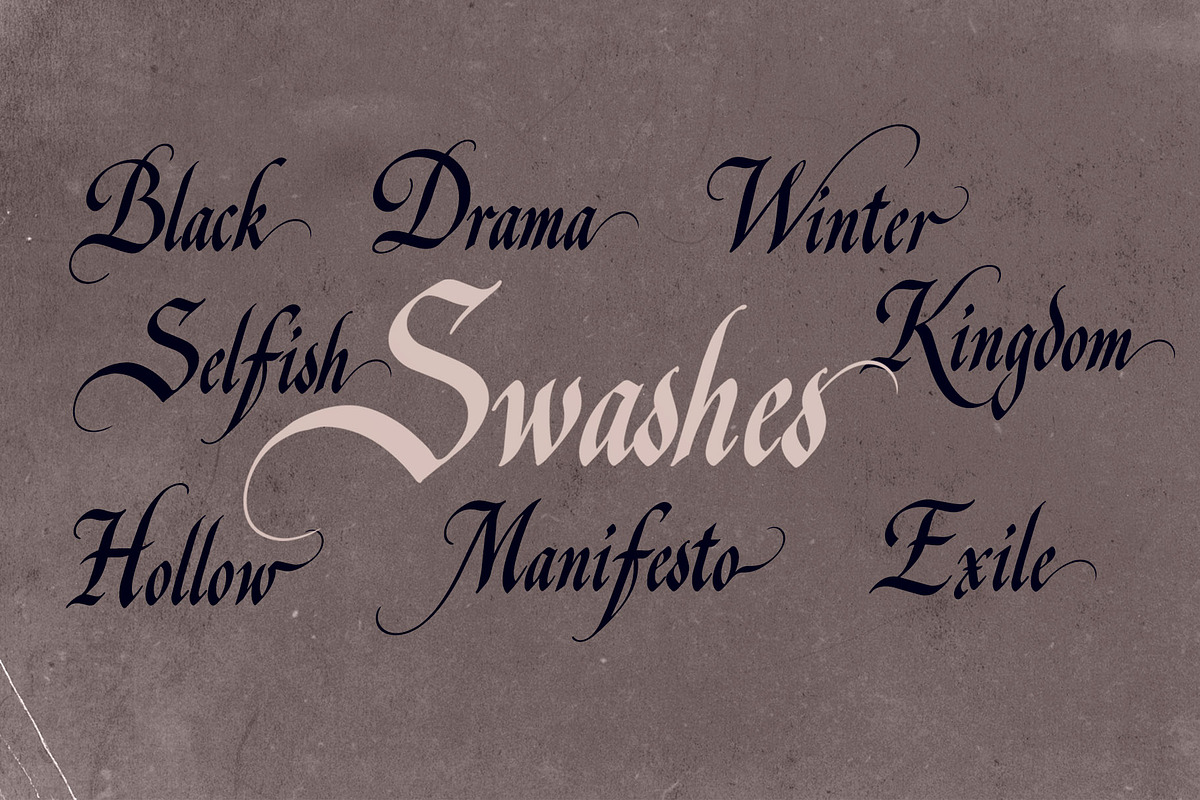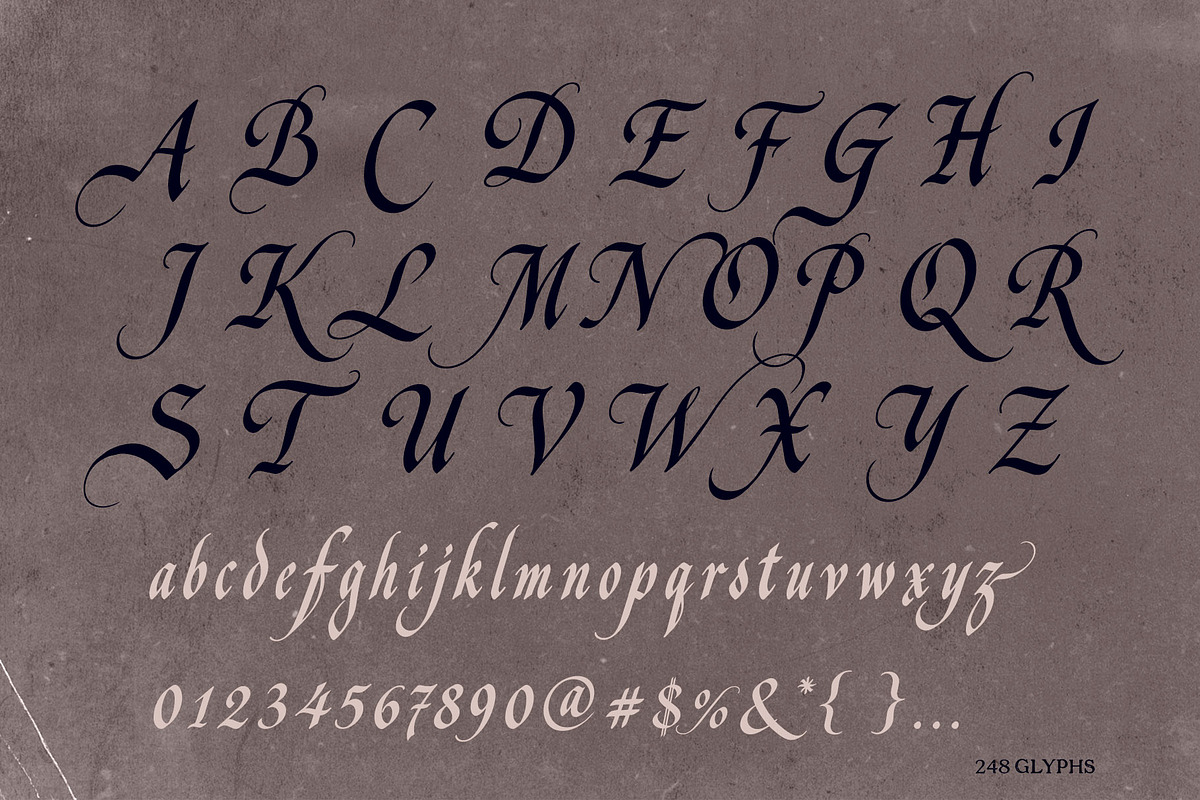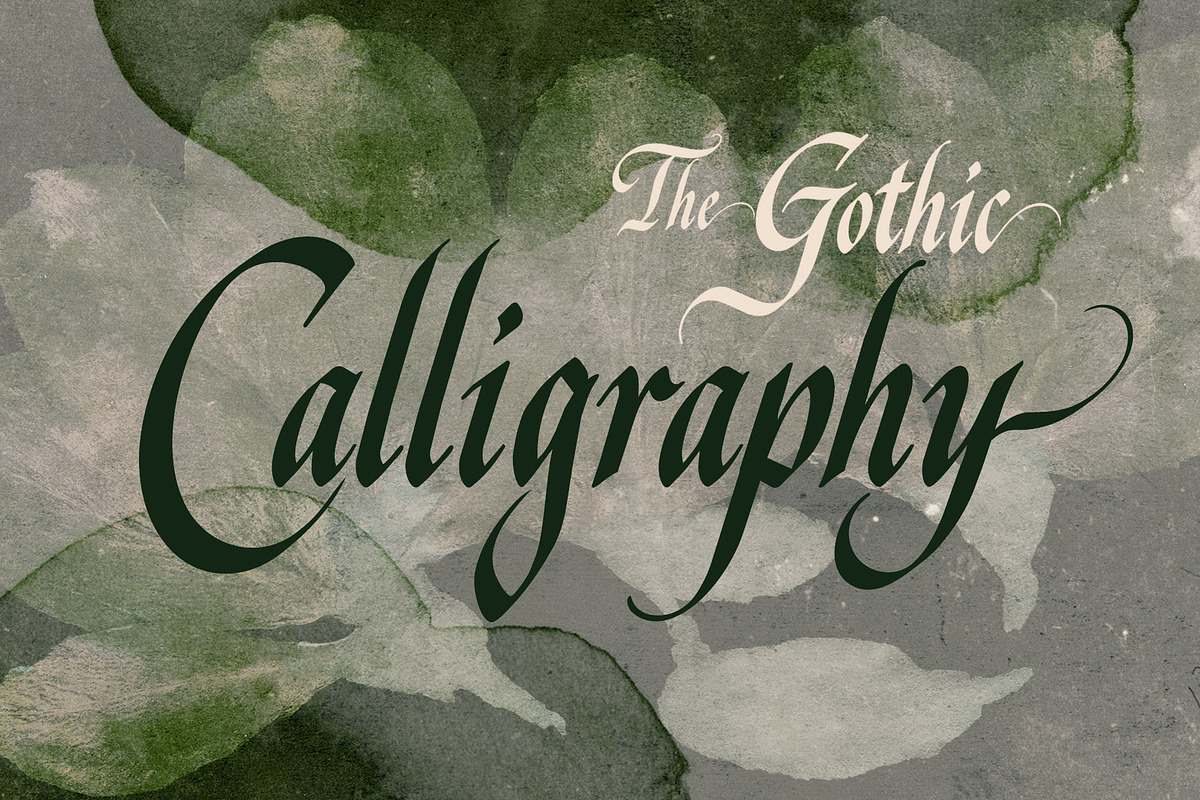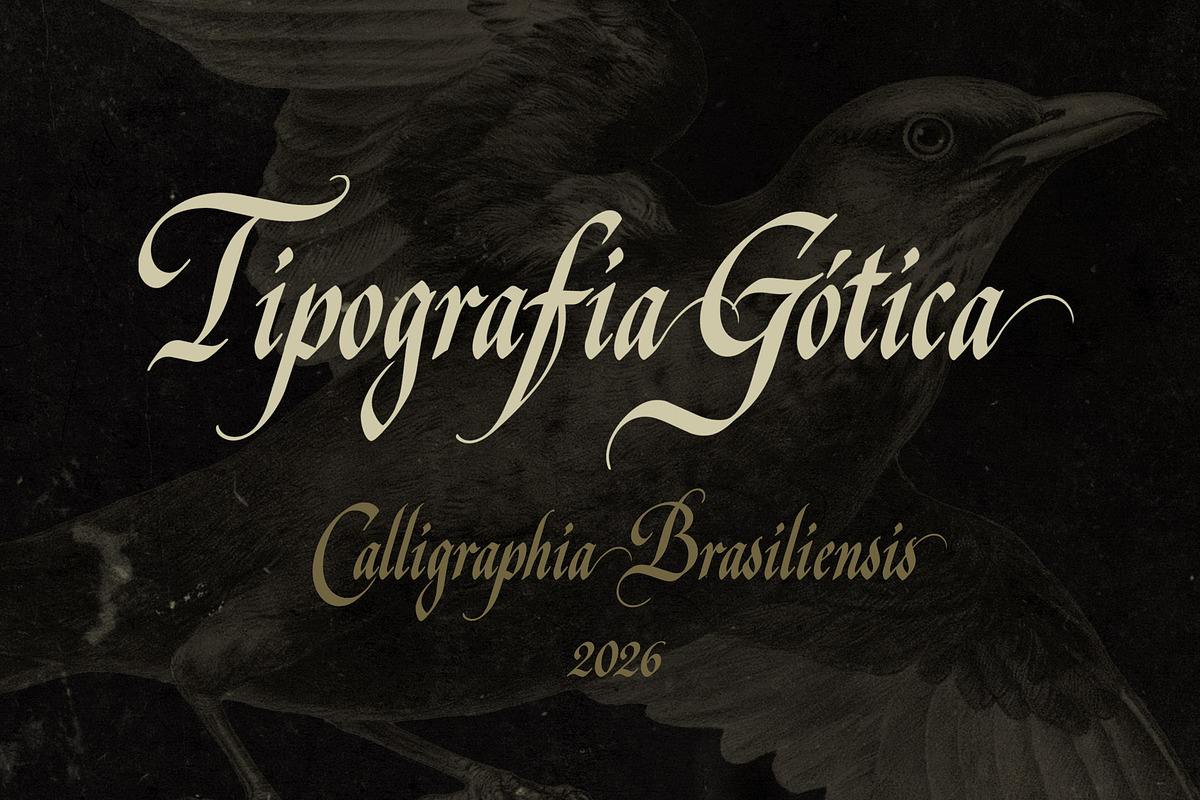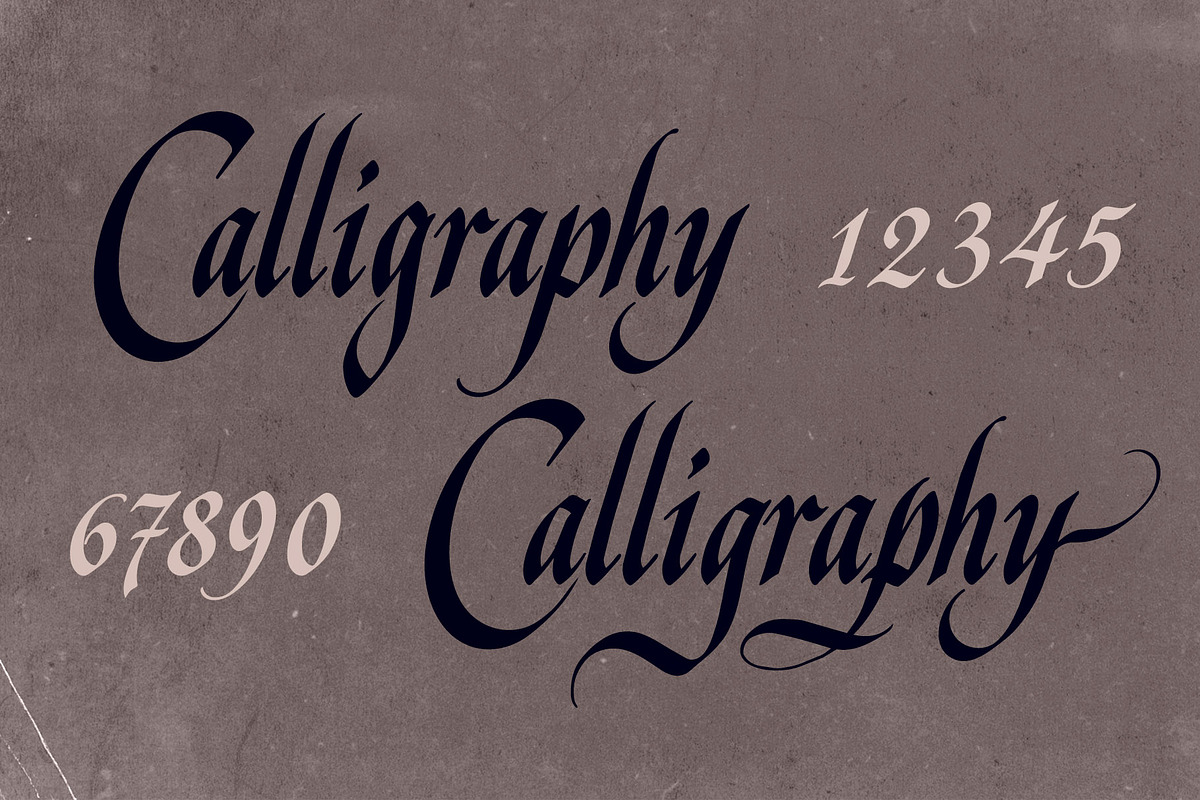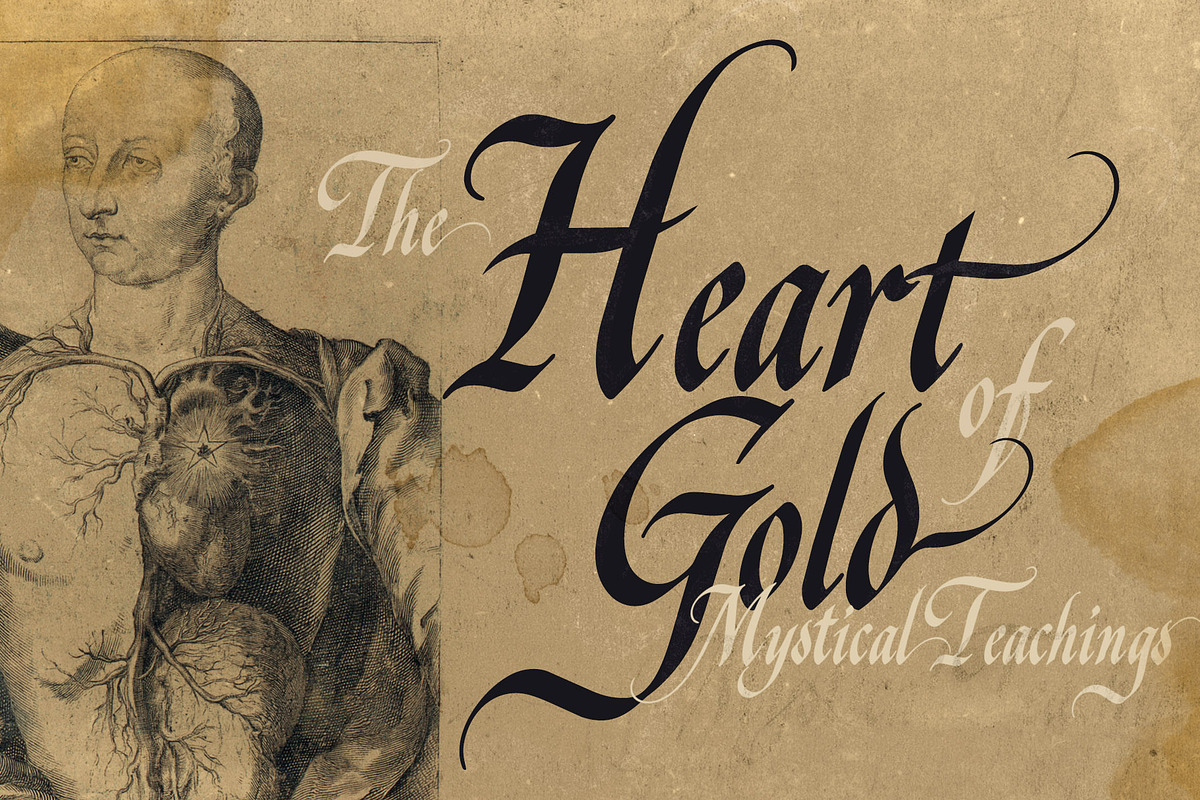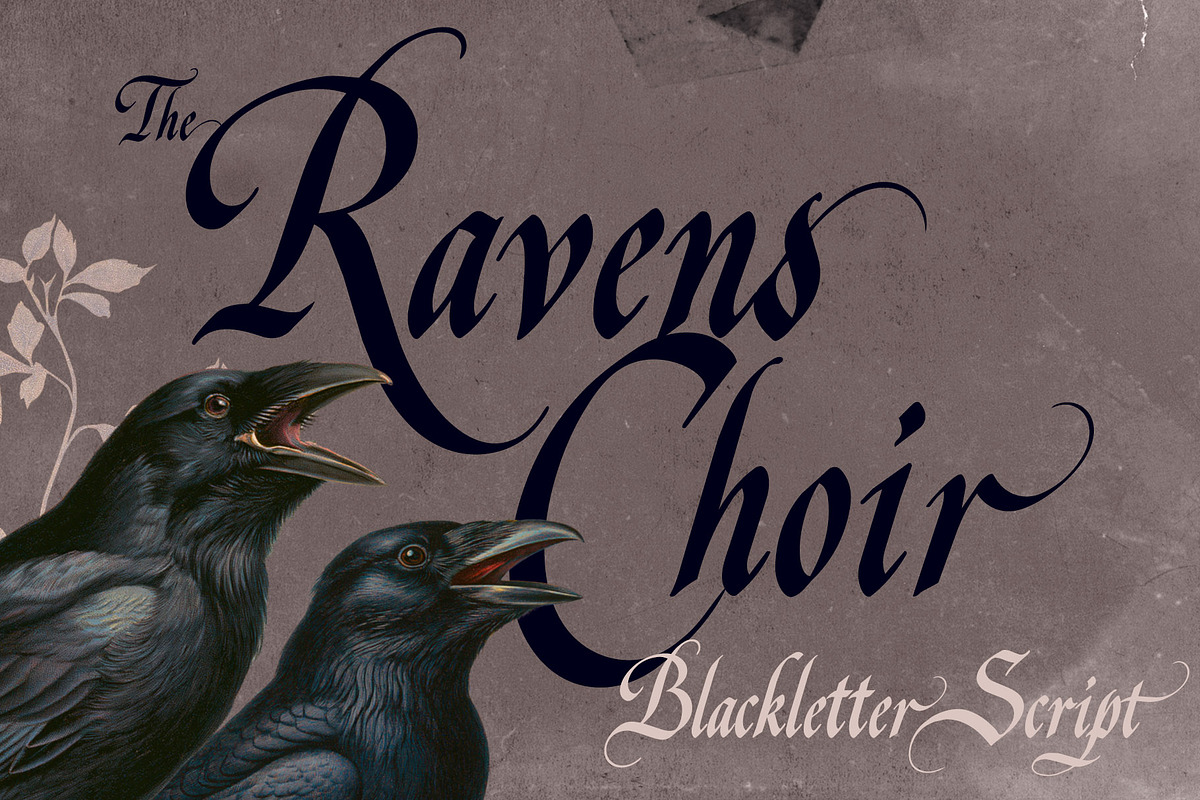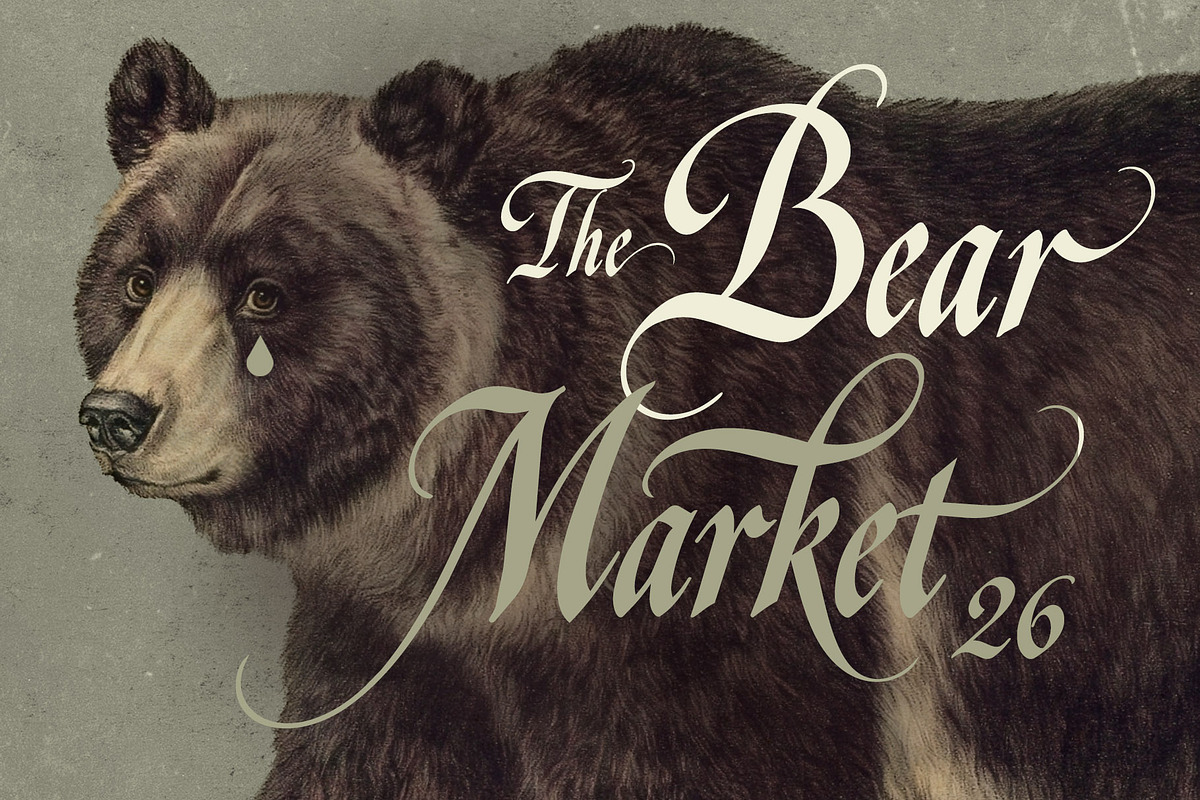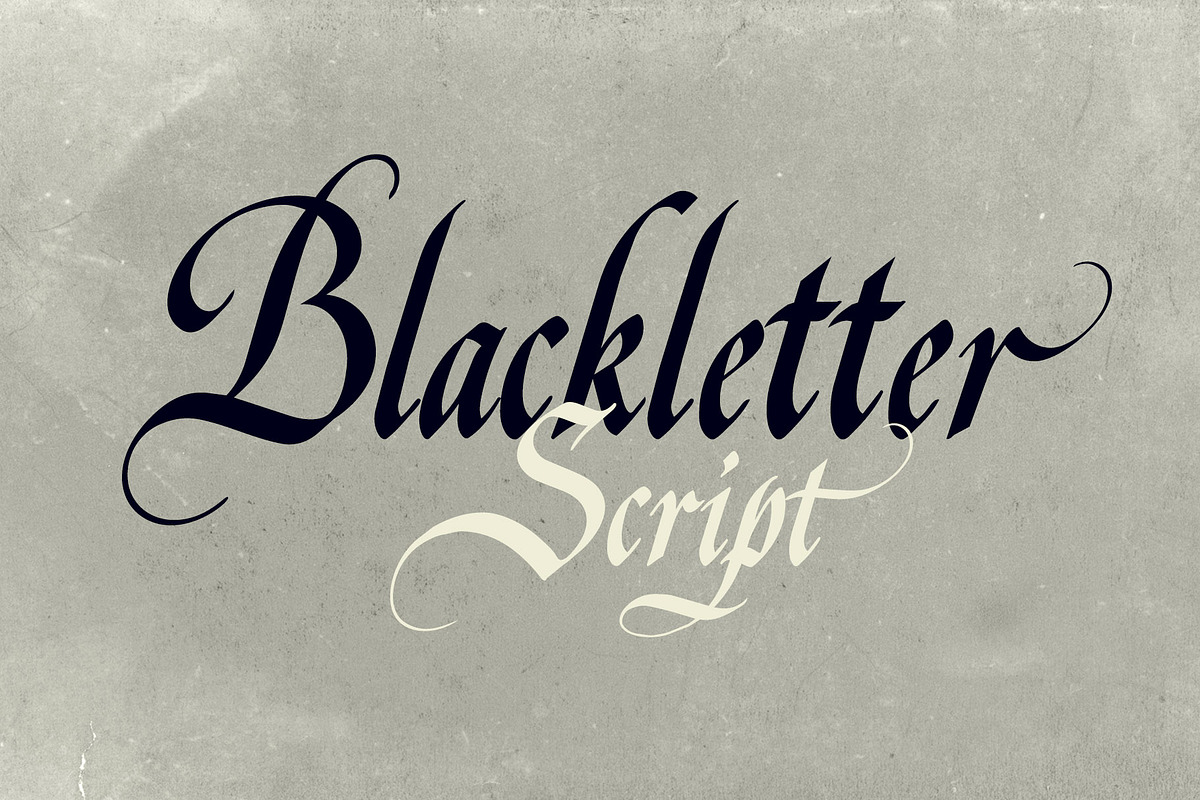
Ravens Choir
Ravens Choir is a blackletter script that blends the rich tradition of Gothic calligraphy with the grace and movement of cursive writing. While most blackletter typefaces favor rigid, angular forms, Ravens Choir introduces flowing strokes and elegant transitions, creating a style that feels both regal and expressive. The result is a typeface that captures the spirit of medieval manuscripts while remaining fresh and contemporary.
The beautifully swashed capitals bring a sense of sophistication to every composition, while contextual alternates and ending swashes allow words to flow naturally, adding variation and a genuine calligraphic rhythm. With 248 glyphs, the font offers plenty of flexibility while preserving the distinctive character of traditional blackletter.
Whether you're designing book covers, packaging, invitations, branding, posters, music artwork, or vintage-inspired projects, Ravens Choir combines the timeless beauty of Gothic lettering with the elegance and personality of expressive penmanship.